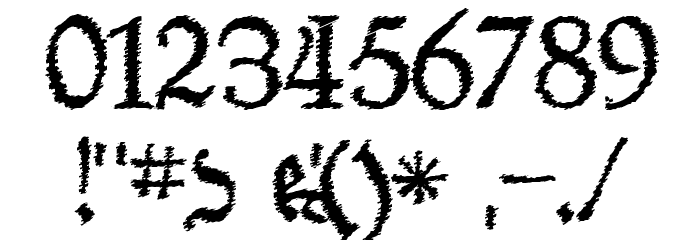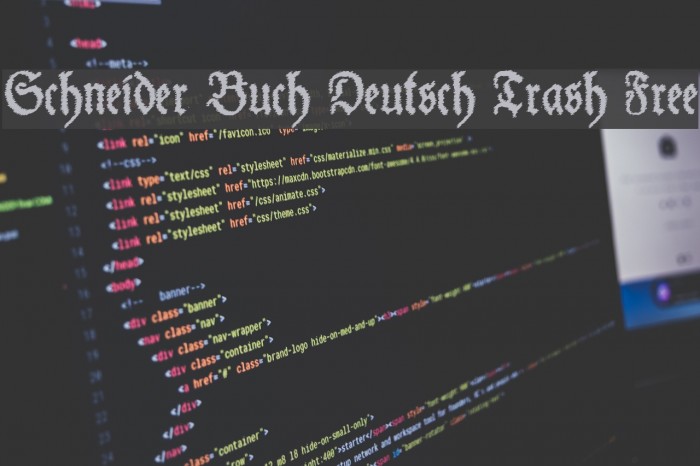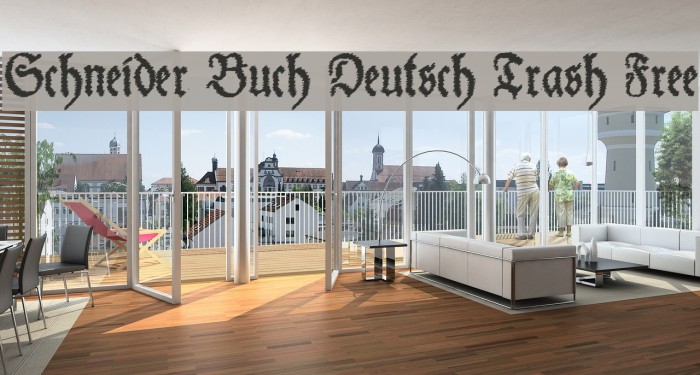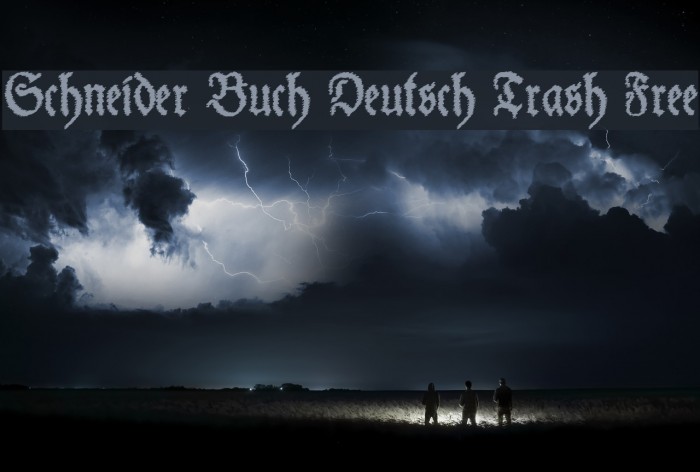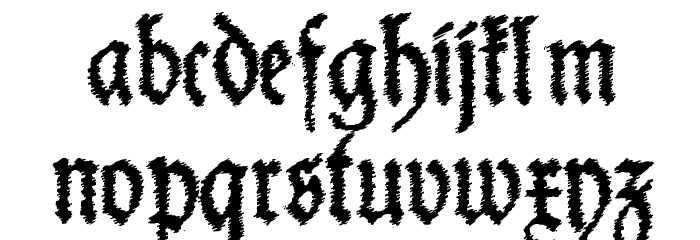
Schneider Buch Deutsch Trash Free Font
Schneider Buch Deutsch Trash Free Description
This font exhibits a traditional and ornate style reminiscent of historical scripts. The characters are intricately designed with elaborate flourishes and sharp edges, giving it a distinctly Gothic appearance. The uppercase letters are bold and commanding, while the lowercase letters maintain a consistent style with slightly more subtle detailing. Numbers and special characters follow the same ornate design, ensuring uniformity across all elements. The overall impression is one of elegance and formality, suitable for projects that require a touch of historical or classical aesthetics.
An ornate Gothic-style font with intricate flourishes and sharp edges from Uncategorized fonts.